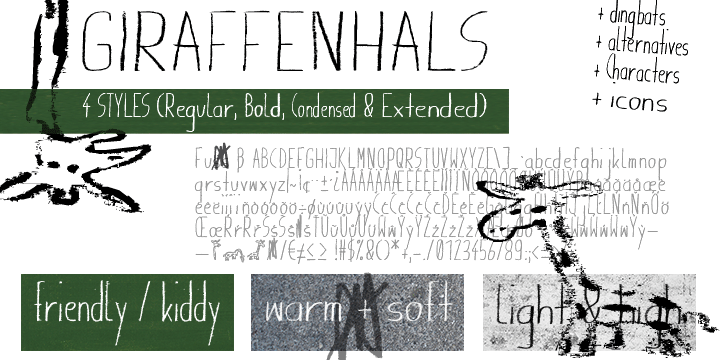
Font name: | Giraffenhals |
Author: | Manuel Viergutz | Typo Graphic Design |
Headline Font / Display Font / Handwritten Font "Giraffenhals" with 4 stlyes (regular, bold, condensed, extended) & 248 glyphs inkl. accents & € INFO If you want to use this font for commercial projects, please contact me: manuel.viergutz[at]gmx.de or donate an amount greater-than-or-equal EUR 15 / $ 19 (for commercial licence). I also appreciate it if you send me links /images of your (non)-commercial work featuring this font. |